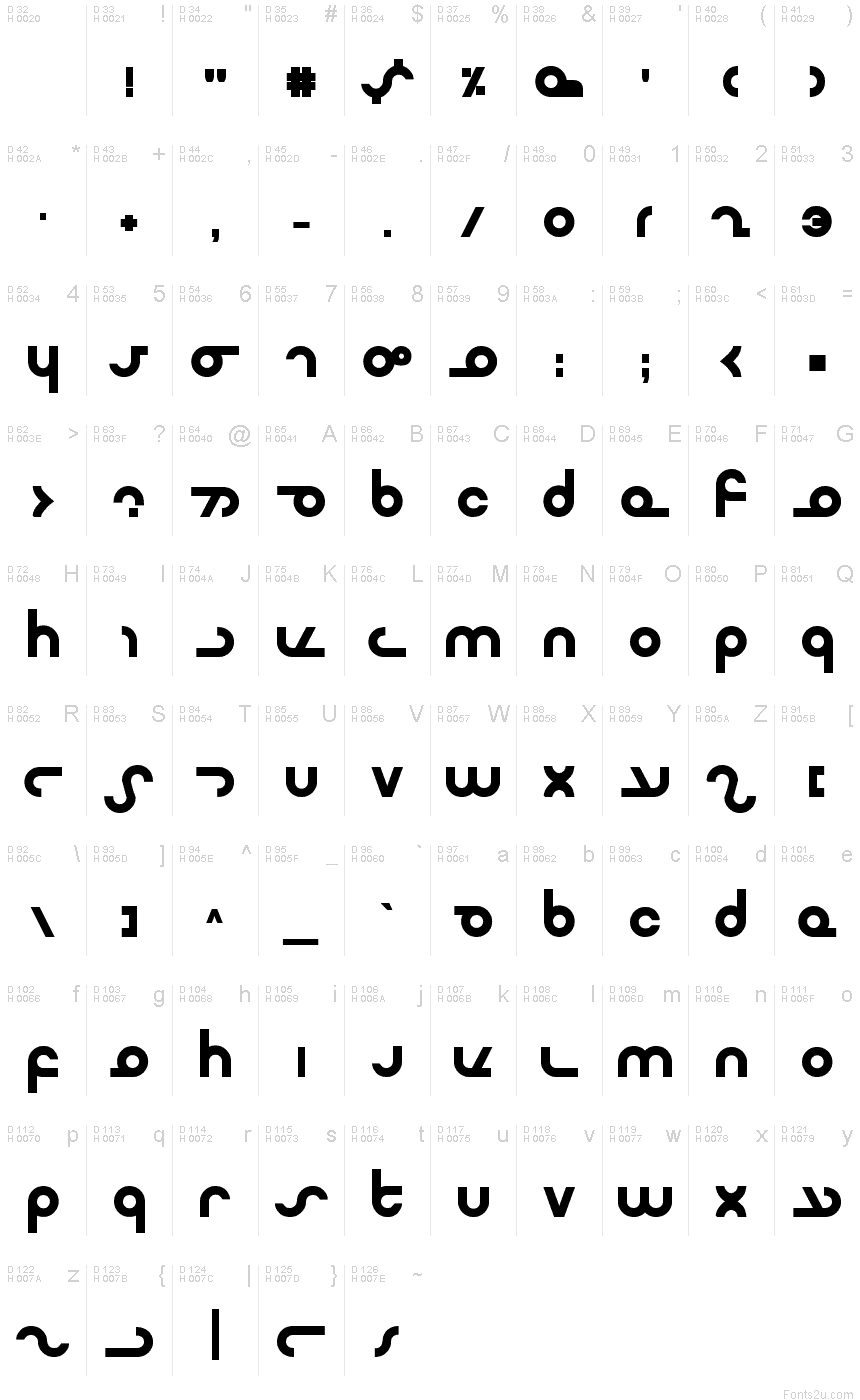
Masterdom Bold
Masterdom Bold font by Iconian Fonts is a free display font with rounded, geometric letterforms and a strong split between smooth curves and flat-cut ends. Its shapes are simple and compact, with soft circular counters, low curved joins, and a few unusual cutaway details that give the set a custom-drawn, poster-style rhythm.
Masterdom Bold works well for logo design, music packaging, game titles, event posters, and short promotional banners because its shapes carry a clear graphic identity without needing extra decoration. It also fits badge art, storefront signs, and social media graphics where a distinctive display face can supply the main visual cue.